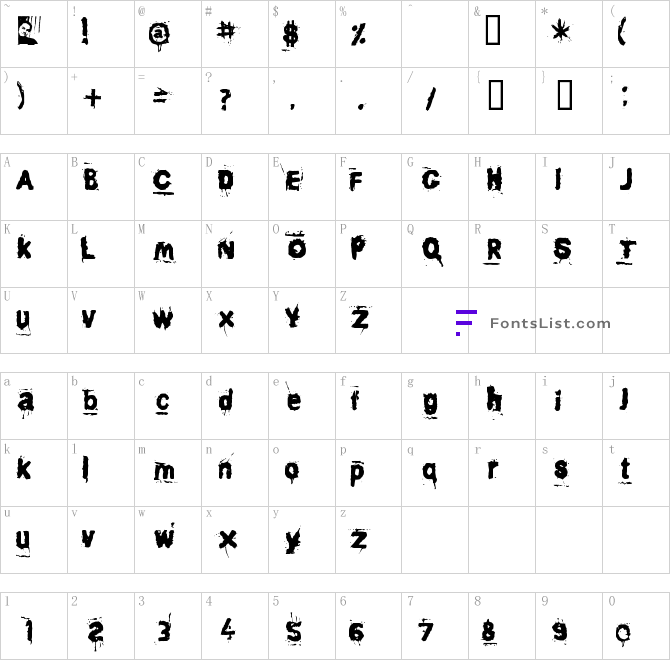
- Font Name:Awaken
Awaken.ttf is a very beautiful artistic font, Awaken.ttf is widely used in the design and printing of various books and pictures,Awaken.ttf has a strong visual impact,Awaken.ttf is a commonly used font in newspapers, magazines and books, and is used in posters, e-commerce Poster design, store design, logo design, font design and other fields.Awaken.